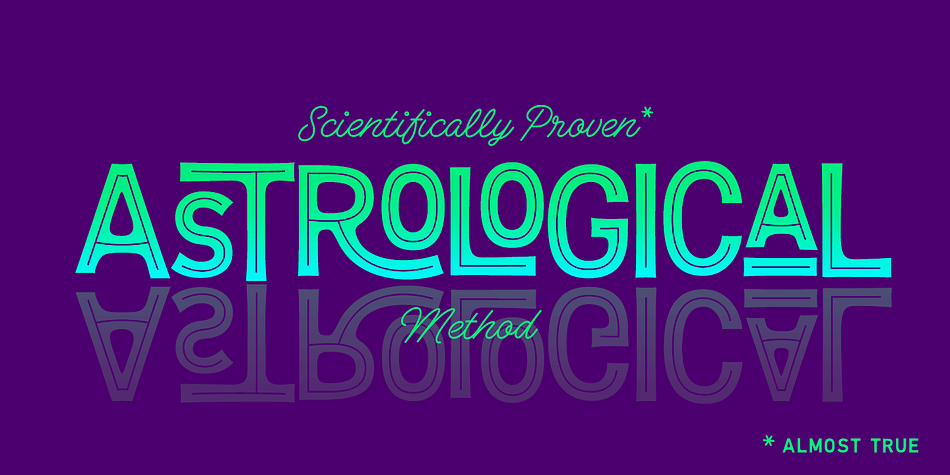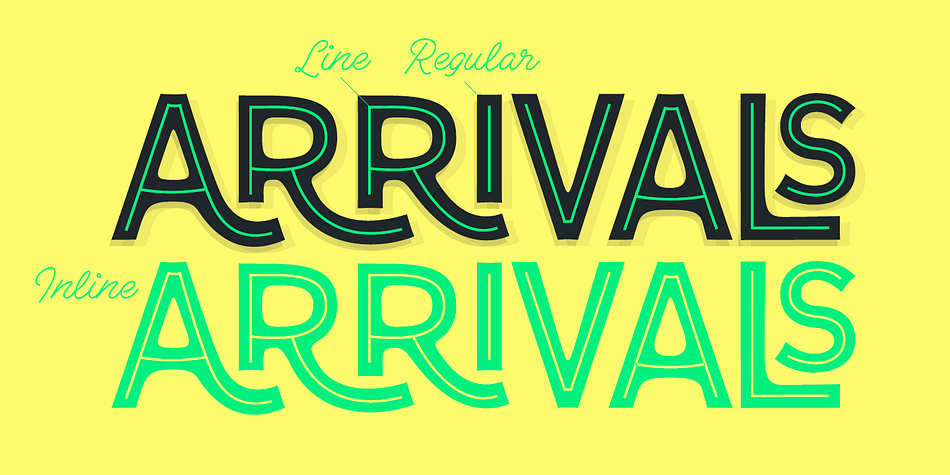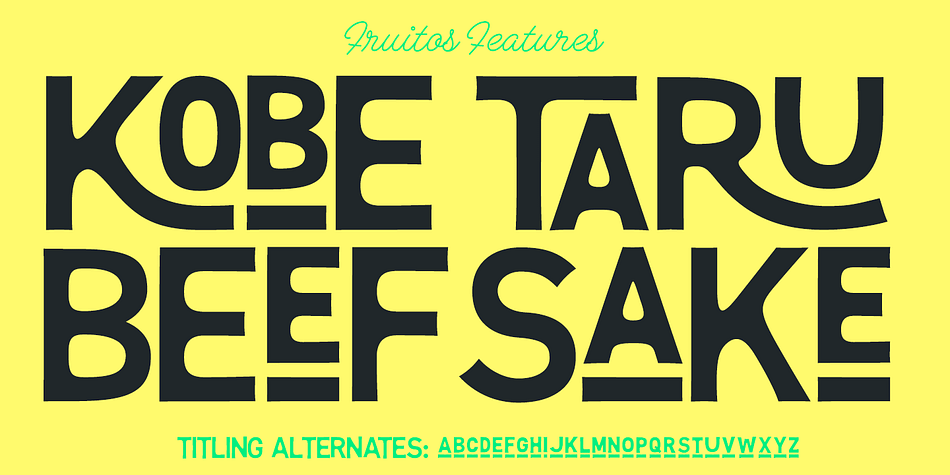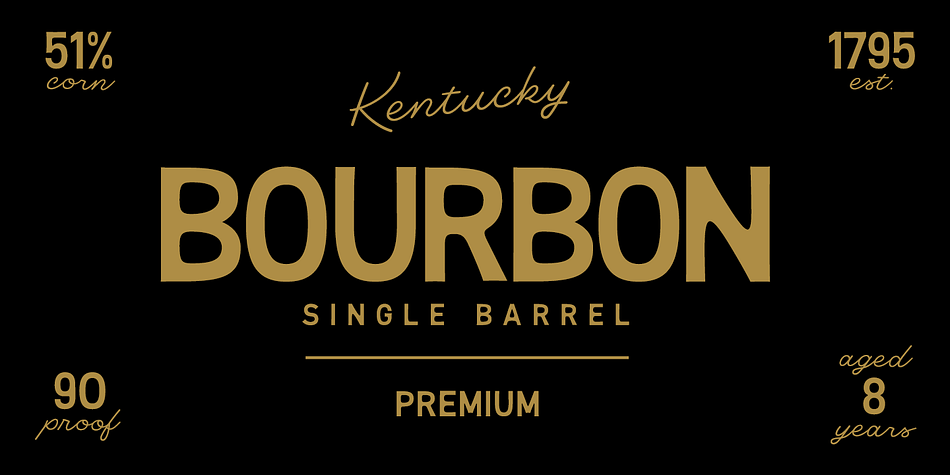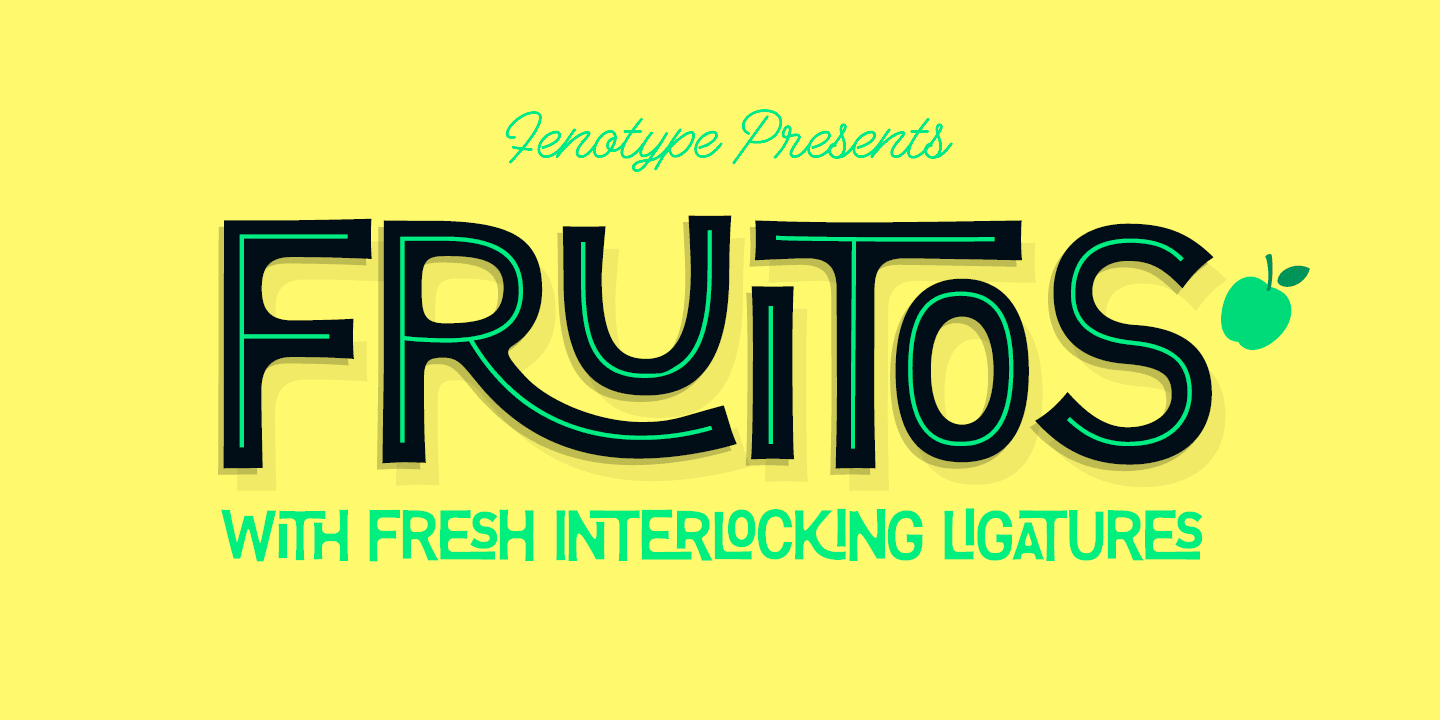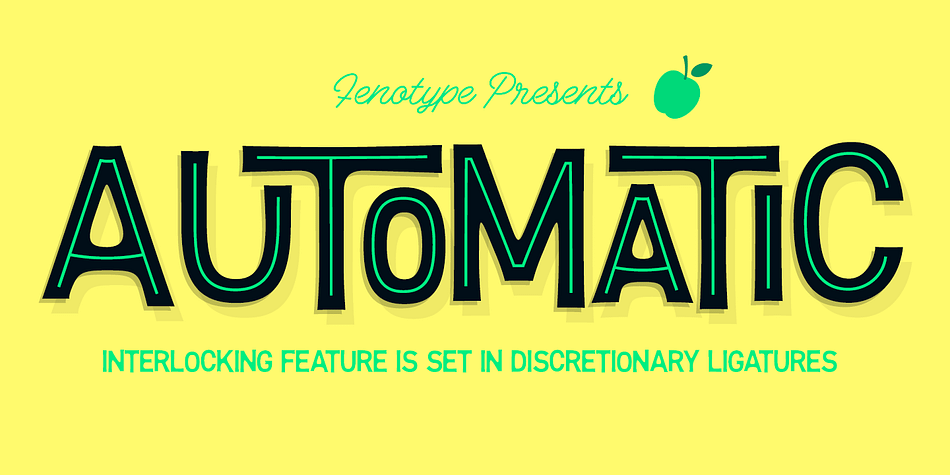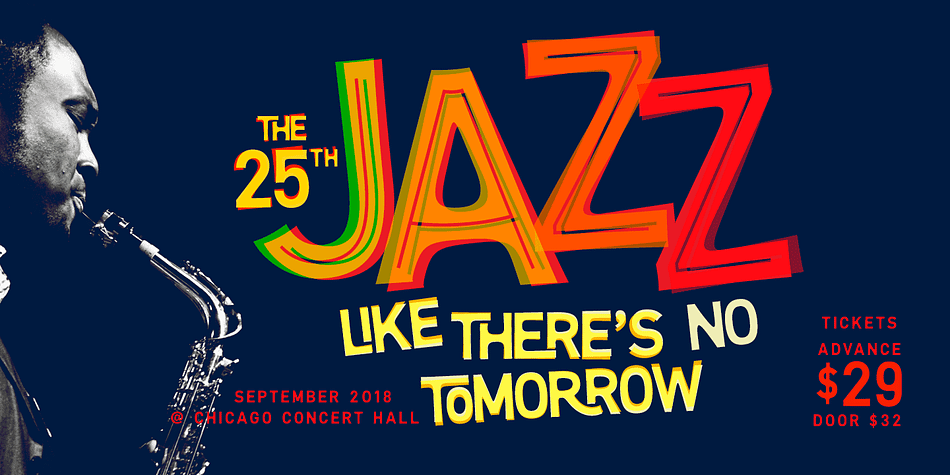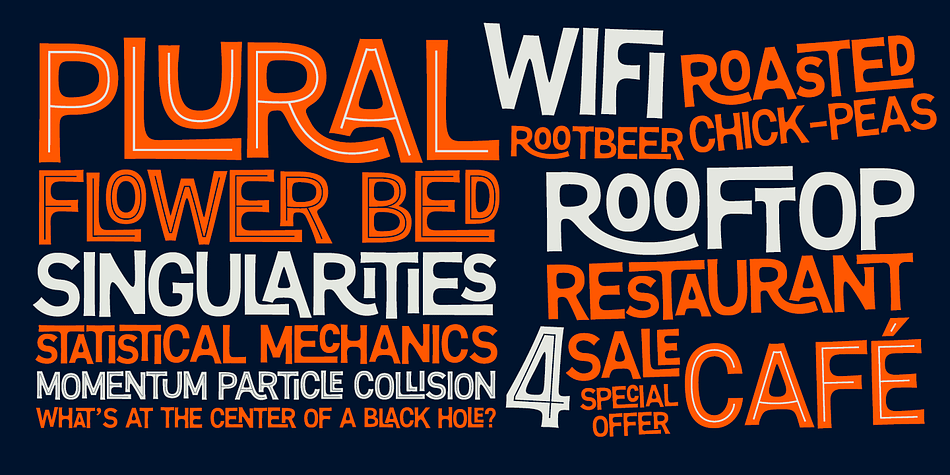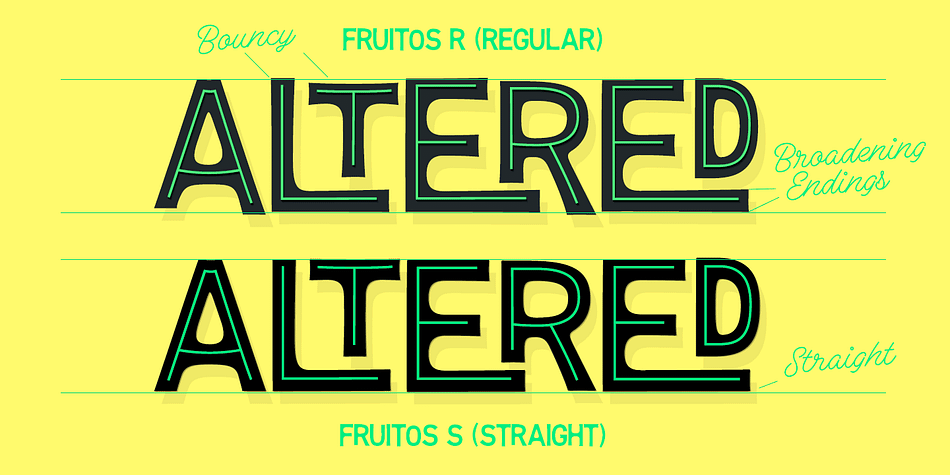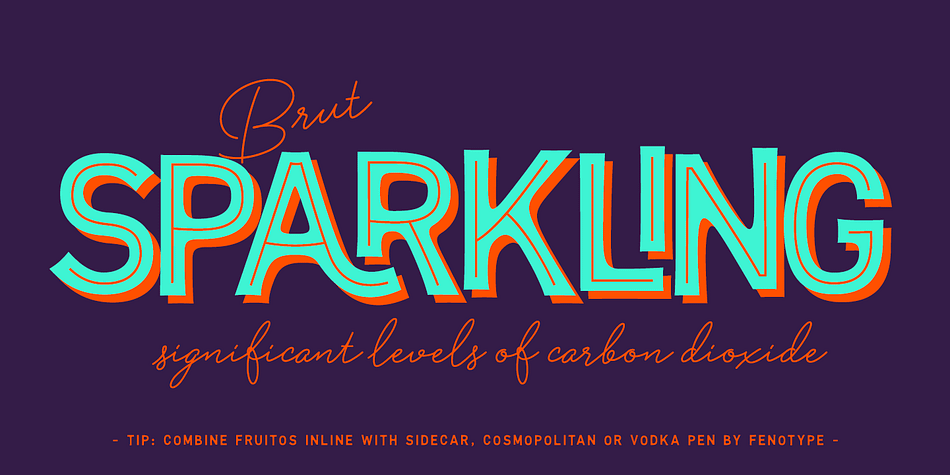
Designed by Emil Bertell, Fruitos is a display sans font family. This typeface has six styles and was published by Fenotype.
Fruitos is funky font family with loads of interlocking ligatures. Fruitos is great for packaging, posters or any display use.
Fruitos is divided into two families: Fruitos R (regular) is bouncy and has wider “serifs” whereas Fruitos S (straight) makes clear blocks and has straight forms. Both versions have a standard fill version, an Inline version and a Line version that can be used together with the standard version for colourful inline.
Fruitos also has an underlined Titling Alternates for every basic character. Try Titling Alternates to spice up your words!